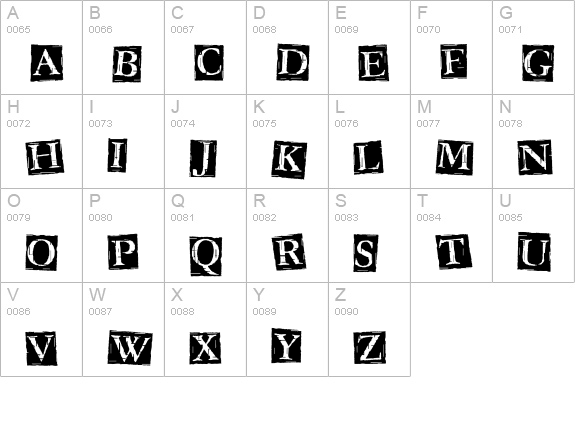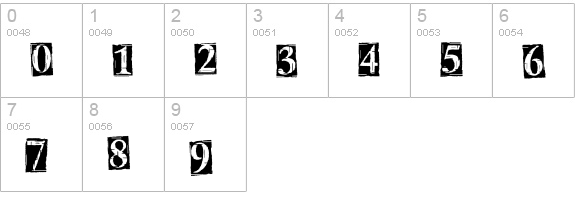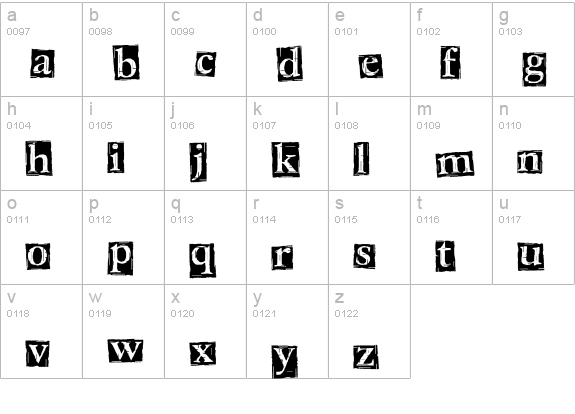
CK Scratchy Box Font Details
Introducing CK Scratchy Box font, a whimsical and playful typeface perfect for adding a touch of spontaneity to your designs. This unique font features charmingly irregular lines and scratchy edges, giving it a hand-drawn feel that is sure to catch the eye. Whether you're looking to create eye-catching posters, greeting cards, or social media graphics, CK Scratchy Box font is a versatile choice that will bring a fun and energetic vibe to your projects. The best part? CK Scratchy Box font is completely free to download at FontsMarket.com. So go ahead and unleash your creativity with this delightful font that is sure to add a touch of personality to your designs.